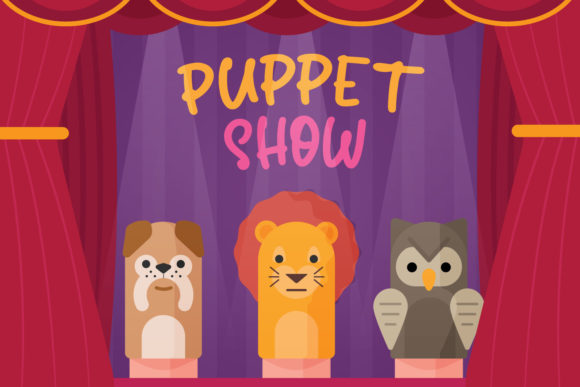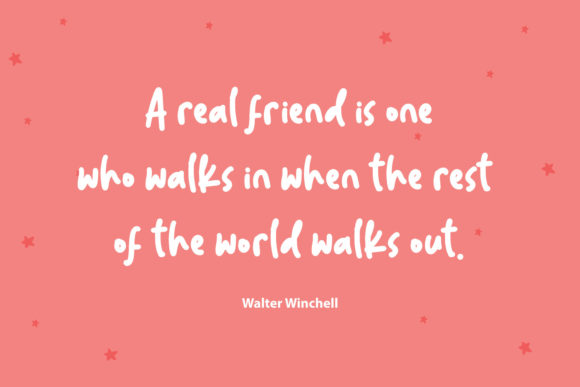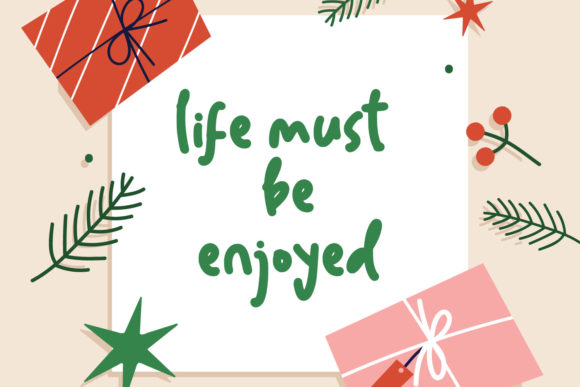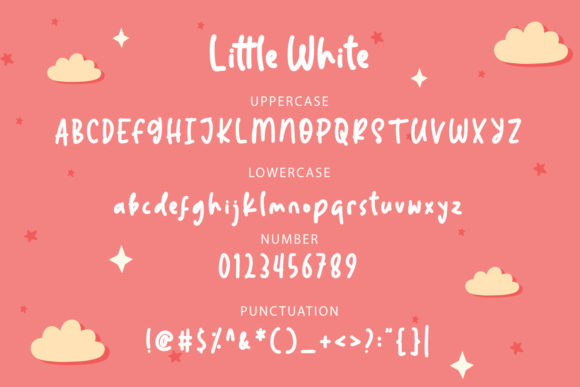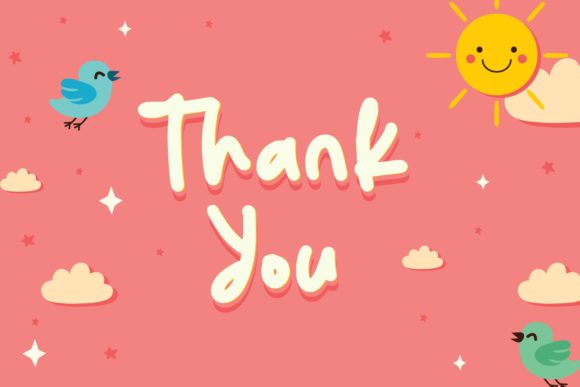
Introduction to Little White Font
As designers, we’ve all been there – staring at a blank canvas, trying to bring our creative vision to life. The perfect font can be the spark that sets off a chain reaction of inspiration. For many, that spark comes in the form of Little White Font, a charming and versatile display font that’s about to take your design projects to new heights.
Little White Font is more than just a pretty face – it’s a valuable resource for designers looking to add a touch of whimsy and sophistication to their work. With its transparent background and high-quality design, this free download is the perfect addition to any creative project. Whether you’re working on a branding campaign, crafting wedding invitations, or designing labels, Little White Font is sure to elevate your designs and leave a lasting impression.
Key Features of Little White Font
- Transparent Background: The Little White Font features a transparent background, allowing for seamless integration with any creative project.
- High-Quality Design: This font is designed with high-quality in mind, ensuring crisp and clear text for any design resource.
- Vector-Based: The Little White Font is a vector-based design, allowing for scalability without compromising on quality, even at high resolutions.
- Unique Characteristics: The Little White Font features a distinctive, elegant design that is perfect for creative projects, including logos, typography, and more.
Honest Review: Little White Font
As a designer, I’m always on the lookout for high-quality fonts that can elevate my creative projects. Recently, I had the chance to work with the Little White Font, and I’m excited to share my thoughts with you.
- ✨ The transparent background allows for seamless integration with various design elements, giving me more flexibility in my creative project.
- ✨ The font’s high quality is evident in its crisp lines and smooth curves, making it perfect for both print and digital designs.
- ⚠️ The font’s character set is somewhat limited, which may not be ideal for projects that require a wide range of characters.
Overall, I’m impressed with the Little White Font and would recommend it to designers looking for a high-quality, free design resource. Just be aware of its limitations and ensure you understand the licensing terms before using it in your creative project.
Tips for Getting the Most Out of Little White Font
For a transparent background, simply place the Little White Font on a layer with a transparent background. This will allow you to use it on any design without worrying about a distracting background. Additionally, consider using high-quality images or graphics to pair with your Little White Font for a professional look.
The Little White Font is perfect for creative projects such as wedding invitations, business cards, or social media graphics. It’s also a great resource for designers looking for a free download to use in their designs. With its clean and simple design, the Little White Font is versatile and easy to use in any design project.